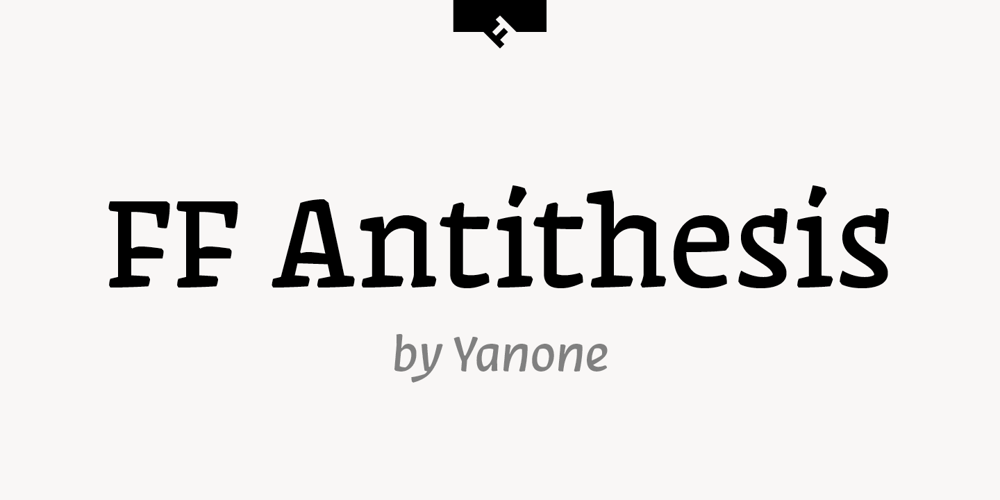
FF Antithesis
FF Antithesis font
FF Antithesis Font Family was designed by Yanone and published by FontFont. FF Antithesis contains 3 styles and family package options. German type designer Yanone created this FontFont in 2013. The family has 3 weights and is ideally suited for advertising, packaging, logo, and branding as well as web and screen design. FF Antithesis provides advanced typographical support with features such as ligatures, small capitals, alternate characters, case-sensitive forms, fractions, and super- and subscript characters. It comes with a complete range of figure set options – oldstyle and lining figures, each in tabular and proportional widths.